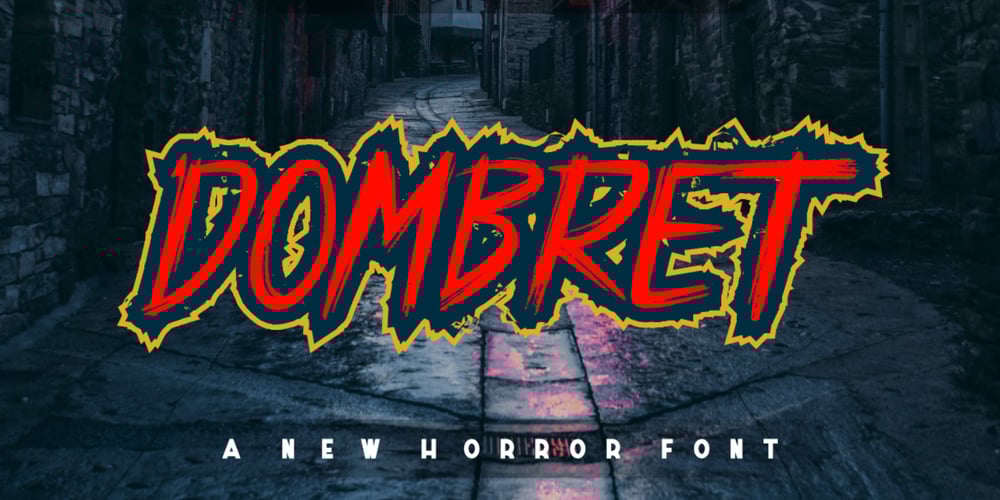
Dombret Font Family was designed by Bayu Aji Fais Mursid and published by Bayuktx. Dombret contains 1 styles and family package options. Dombret a New Horror Font, This font is made with a high premium quality level which you can use as flyers, quotes, posters, banners, packaging, merchandise, logotypes and much more.FEATURES :* Uppercase* Lowercase* Number* Punctuation* Multilingual* PUA Encode* OpentypeFILES INCLUDED :* Dombret. TThank you